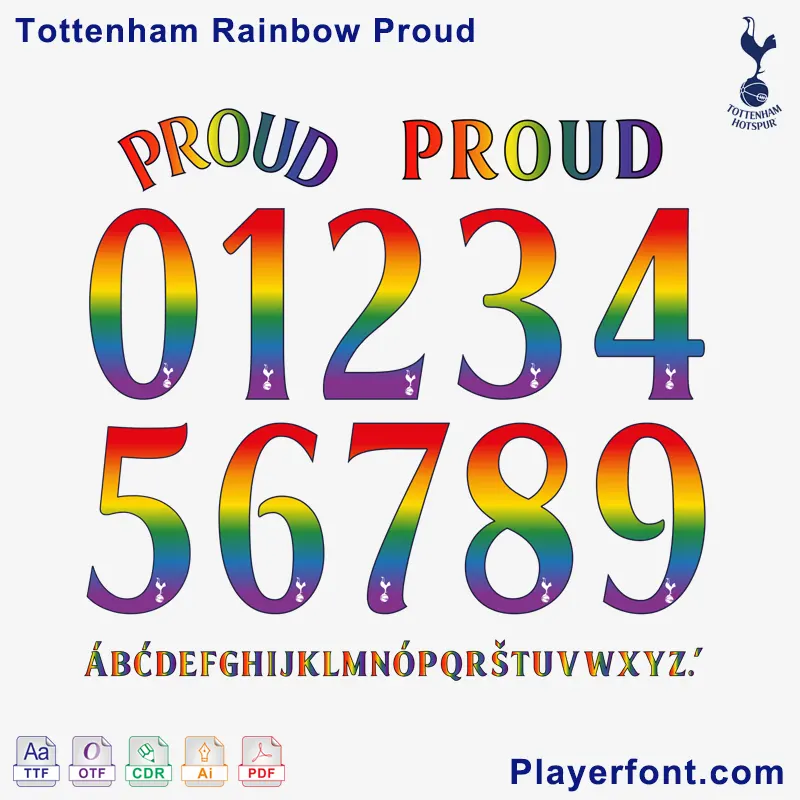
Show your Spurs pride with the Tottenham Rainbow Proud font, the official typography celebrating diversity and inclusion for the Tottenham Hotspur community. This vibrant, rainbow-inspired font is a must-have for fans, designers, and anyone passionate about football and equality.
Crafted to embody the spirit of Tottenham’s commitment to pride, this high-quality font is ideal for creating custom merchandise, posters, social media graphics, or personal projects that stand out. Available for instant download, it’s compatible with all major design tools and easy to integrate into your creative workflow.